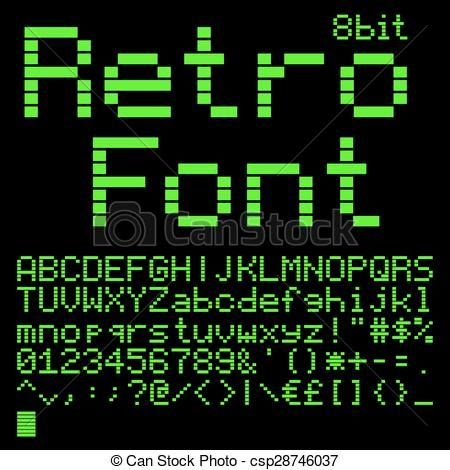
Chinese pixel font generator. Pixel fonts, also known as screen fonts or bitmap fonts, are fonts consisting of small pixels. This is super easy to use by following simple steps. It converts simplified characters into traditional chinese but has difficulty accepting traditional chinese characters as input (some characters don’t show up).
Simply type or copy the normal text into the blank text field. Pixel fonts display the texts in simple blocks instead of elaborate curves as most regular fonts do. The text generator section features simple tools that let you create graphics with fonts of different styles as well as various text effects;